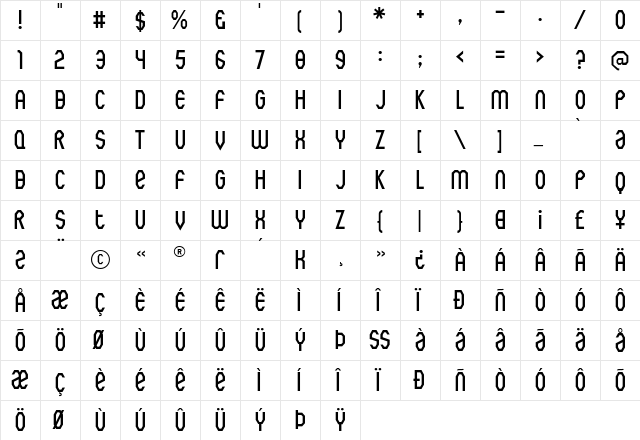
Rothwell Army
Design Context for Rothwell Typeface
Rothwell has the no-nonsense character of military stencilling and tactical signage, projecting authority and directness.
A strong choice for security brands, outdoor gear, and high-stakes visual communication.
Pro Tip: Try Rothwell in all-caps for the most authentic military signage feel. It pairs well with stark, minimal layouts and muted colour palettes.